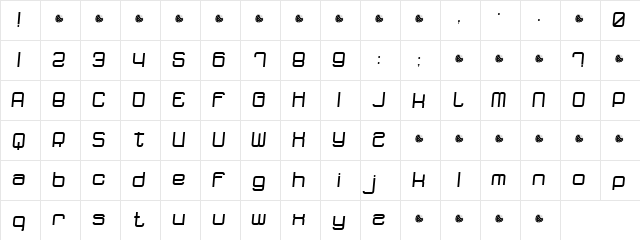
dopenakedfoul relaxed Regular
Design Context for dopenakedfoul relaxed Typeface
dopenakedfoul relaxed takes a measured approach to typography — its balanced proportions and neutral character make it a reliable workhorse for both digital and print work.